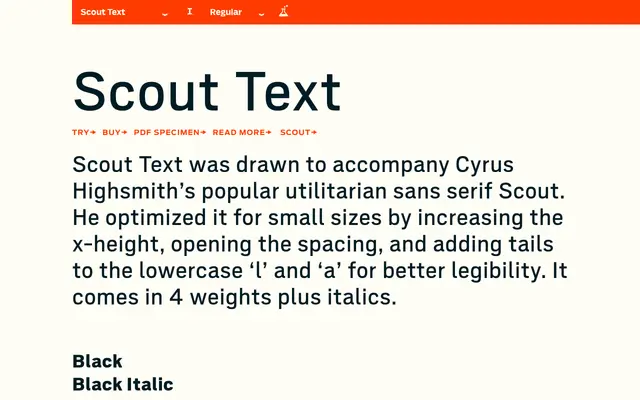
Scout Text
Occupant Fonts · Cyrus Highsmith · 2016
A text-optimised companion to Cyrus Highsmith's Scout, tuned for small sizes through increased x-height, open spacing and disambiguating tails on the 'l' and 'a'.
Drawn by Cyrus Highsmith in 2016 as a counterpart to his display-oriented Scout sans, Scout Text makes targeted modifications for body text use. The x-height is raised, spacing is opened out, and tails are added to the lowercase 'l' and 'a' to improve legibility at small sizes. Four weights from Light to Black are offered, each with a matching italic.
Scout Text is a humanist sans optimised for text setting, companion to the display-oriented Scout, with legibility-focused adjustments including tails on 'l' and 'a' that bring it closer to humanist conventions.